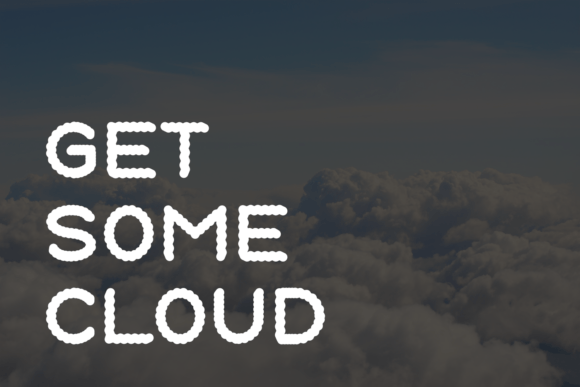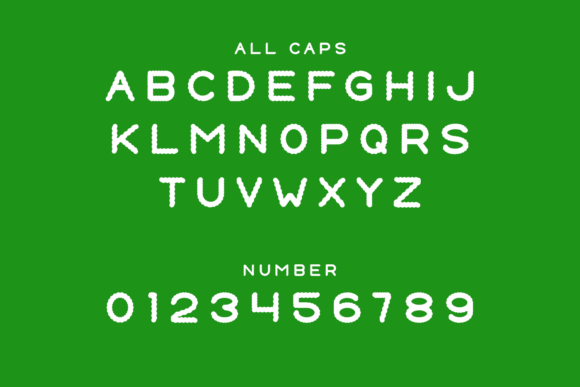
Introducing Clwody Font: The Fun and Unique Display Font You Need
Are you tired of using the same old fonts in your designs? Look no further than Clwody Font, a fun and unique display font that’s sure to elevate your creations. Whether you’re a designer, crafter, or simply someone who loves to dabble in typography, Clwody Font is an incredible asset to have in your font library.
What Makes Clwody Font So Special?
Clwody Font is a display font that’s designed to make a statement. Its unique and playful style is perfect for adding a touch of personality to any design project. Whether you’re working on a logo, brochure, or social media graphic, Clwody Font is sure to turn heads. Its versatility is one of its standout features, making it suitable for a wide range of topics and themes.
Key Features of Clwody Font
- Unique and Playful Style: Clwody Font has a one-of-a-kind design that’s sure to make your creations stand out from the crowd.
- Versatility: This font is perfect for a wide range of design projects, from logos and brochures to social media graphics and more.
- Easy to Read: Despite its playful style, Clwody Font is easy to read, making it perfect for use in both digital and print designs.
- High-Quality Design: Clwody Font is designed with high-quality craftsmanship in mind, ensuring that it looks great in any design.
How to Use Clwody Font in Your Designs
Clwody Font is incredibly easy to use, even if you’re new to design or typography. Here are a few tips for incorporating Clwody Font into your creations:
- Use it as a Headline Font: Clwody Font is perfect for use as a headline font, adding a touch of personality and whimsy to your designs.
- Pair it with Other Fonts: Clwody Font pairs well with a wide range of other fonts, making it easy to create visually appealing combinations.
- Experiment with Different Colors: Clwody Font looks great in a wide range of colors, so don’t be afraid to experiment and find the perfect hue for your design.
Why Designers and Crafters Love Clwody Font
Clwody Font has quickly become a favorite among designers and crafters, and it’s easy to see why. Here are a few reasons why this font is a must-have:
- Instantly Elevates Designs: Clwody Font has the power to instantly elevate your designs, adding a touch of personality and whimsy.
- Perfect for Branding: Clwody Font is perfect for use in branding, helping to create a unique and memorable identity for your business or project.
- Great for Crafting: Clwody Font is also perfect for crafters, adding a touch of personality to handmade cards, scrapbooking, and other crafts.
In conclusion, Clwody Font is a fun and unique display font that’s sure to become a staple in your font library. Its versatility, playfulness, and high-quality design make it perfect for a wide range of design projects. Whether you’re a designer, crafter, or simply someone who loves typography, Clwody Font is an incredible asset to have at your disposal. So why wait? Download Clwody Font today and start elevating your designs!